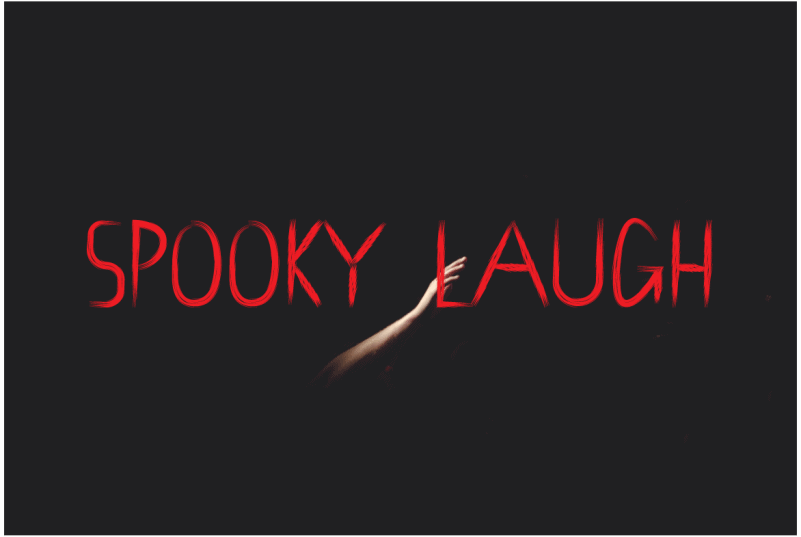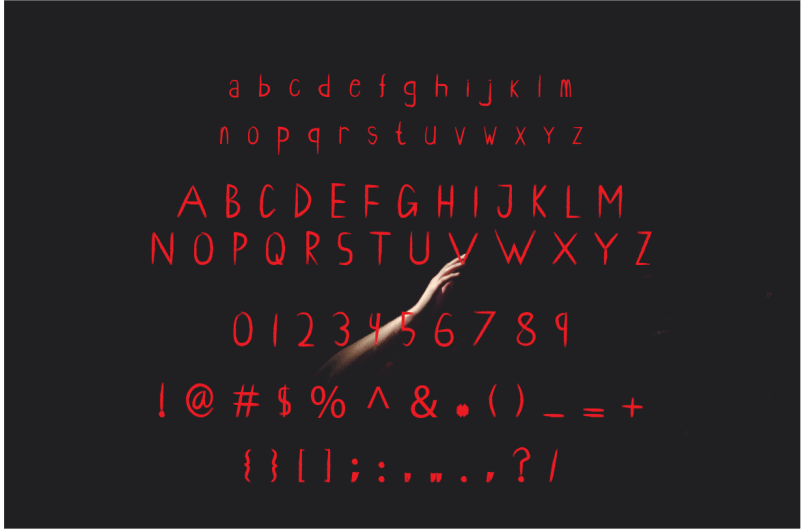
Scream Thing Script Font is inspired by the archetypal horror poster typeface; handmade with a creepy aim, this is a phenomenal font for giving your horror based designs that oomph needed for a truly remarkable design